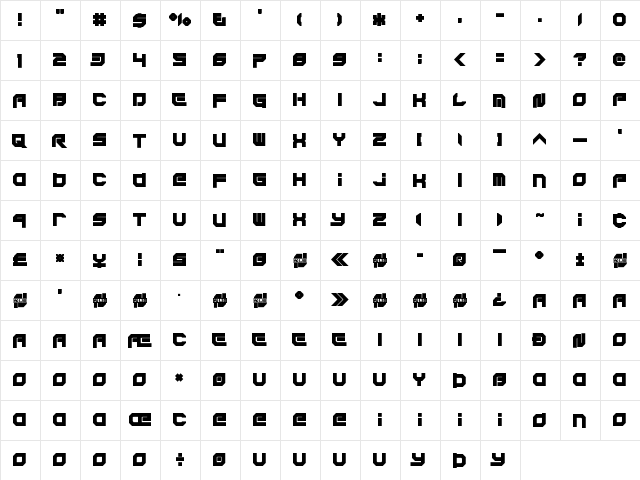
Xodohtro-Nu Regular
| Designer | Andrew McCluskey |
Xodohtro-Nu is a composed and adaptable typeface that performs quietly and consistently across a wide range of design contexts.